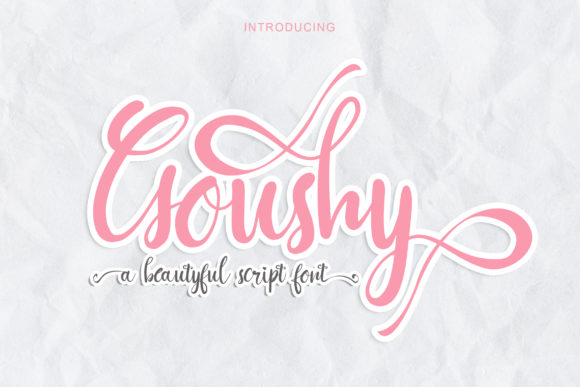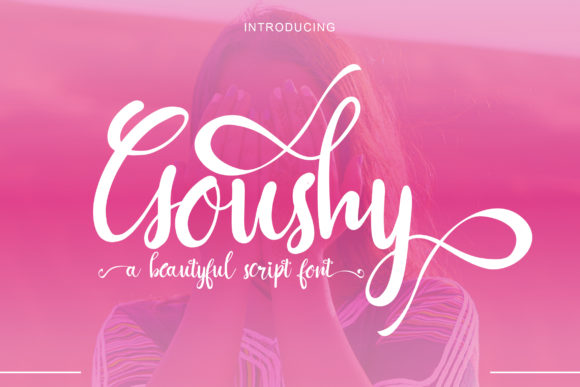
About Goushy Font
Goushy is a fresh and modern script font. Add this whimsical, chic and delicate font to each of your favorite creations. Goushy is PUA encoded which means you can access all of the glyphs and swashes with ease!